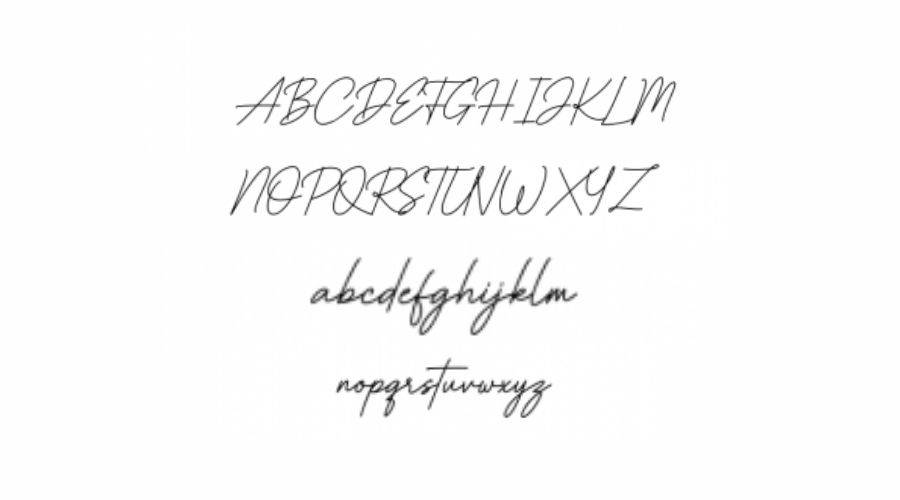
Elliana Samantha Font
Elliana Samantha is a lovely handwritten and script typeface. On January 13, 2020, bluestype studio designed and published it.
Elliana Samantha Font is a handwritten font that looks and feels like scribbled notes. In nature, it’s a bit feminine. It’s a beautiful signature font with a contemporary twist. The modern minimalism of Elliana Samantha Font will inspire you. The format comes in only ZIP format. The font is categorized into two parts: handwritten and script. Also, as an added quality, you count that Web fonts can be converted directly from fonts as Elliana Samantha Font.
Elliana Samantha Font is great for signatures, stationery, logos, typography phrases, newspaper or book covers, website headers, clothes, branding, and packaging design, among other applications. The typeface can also be used on index cards, wedding invites, t-shirt designs, slogans, quotes, fashion, watermarks, and signatures. Your projects will have a natural handcrafted feel, thanks to the font.